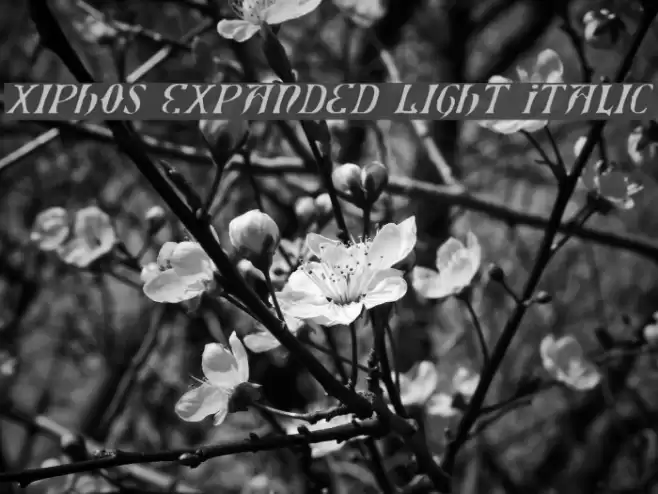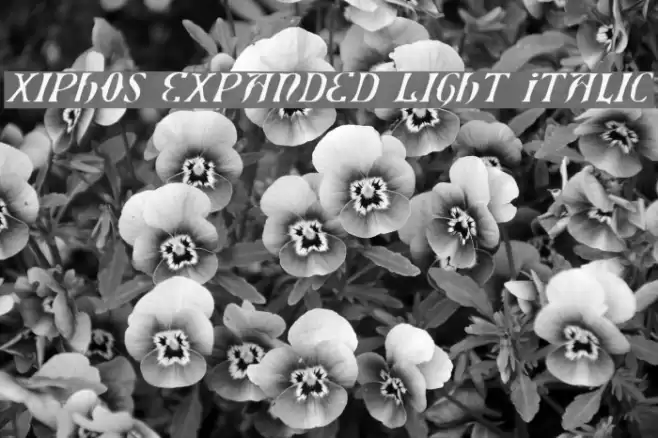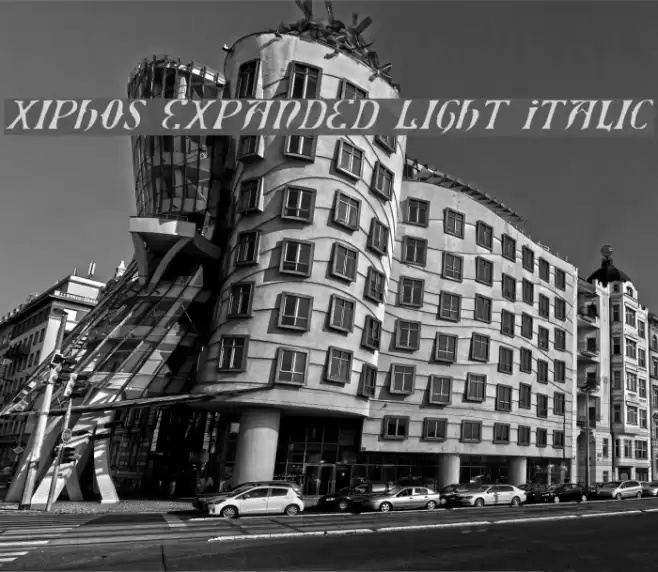
Xiphos Expanded Light Italic Font
Xiphos Expanded Light Italic Description
This font features an elegant and dynamic design, characterized by its expanded and italicized form. The strokes are light, giving it a delicate appearance, while the expanded width adds a sense of grandeur and openness. The italic slant enhances its fluidity and movement, making it suitable for creative and expressive designs. The characters are uniquely styled with sharp edges and curves, providing a modern and artistic flair. This font is versatile, offering a distinctive look that can be used to make a bold statement in various design projects.
An elegant, expanded, and italicized font with a light weight and modern style from Farsi fonts.
- Proposed Projects: Ideal for creative projects such as logos, headlines, posters, and branding materials that require a distinctive and artistic touch.